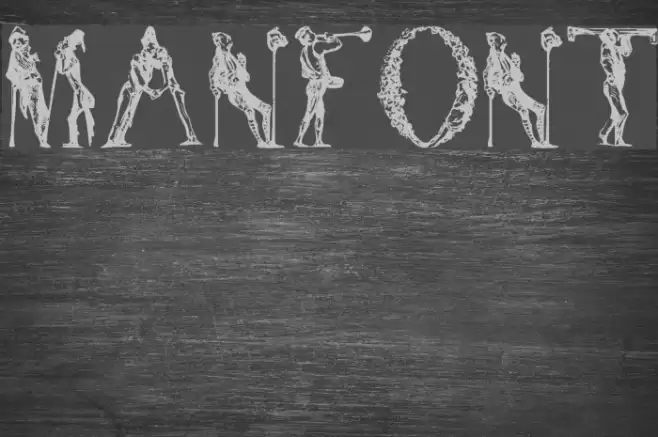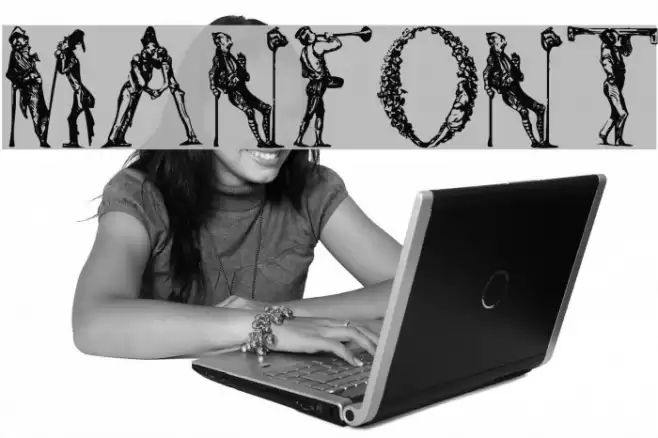
ManFont Font
ManFont Description
This font is a unique and artistic representation where each letter is formed by human figures in various poses. The design is intricate, with each character crafted to resemble a person or group of people, creating a playful and imaginative visual experience. The font is highly decorative, making it stand out with its creative use of human forms to construct the alphabet. It is not suitable for body text due to its complexity but serves as an excellent choice for projects that require a distinctive and eye-catching headline or logo. The font's artistic nature makes it ideal for creative industries, art projects, or any context where a bold statement is desired.
An artistic font where letters are formed by human figures in various poses from Uncategorized fonts.